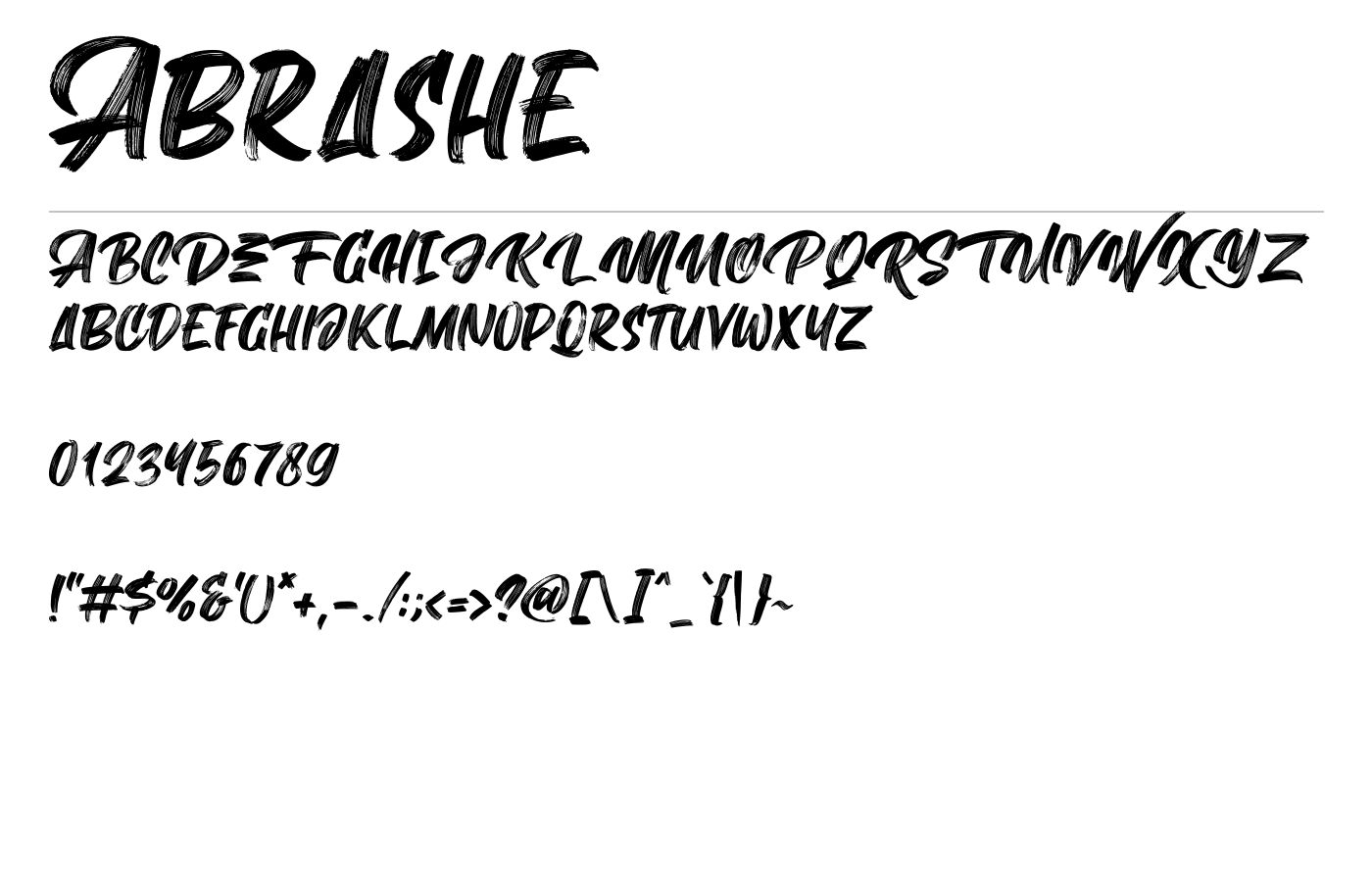
Abrashe is a bold, brush-script font that combines energetic, hand-painted strokes with a dynamic and informal style. Its slightly condensed letterforms and textured edges give it a lively, artistic feel, making it perfect for creative branding, posters, and headlines that need a strong, expressive personality. This font works well where an eye-catching, handcrafted look is desired to convey passion and originality.
Abrashe Font
About Abrashe Font